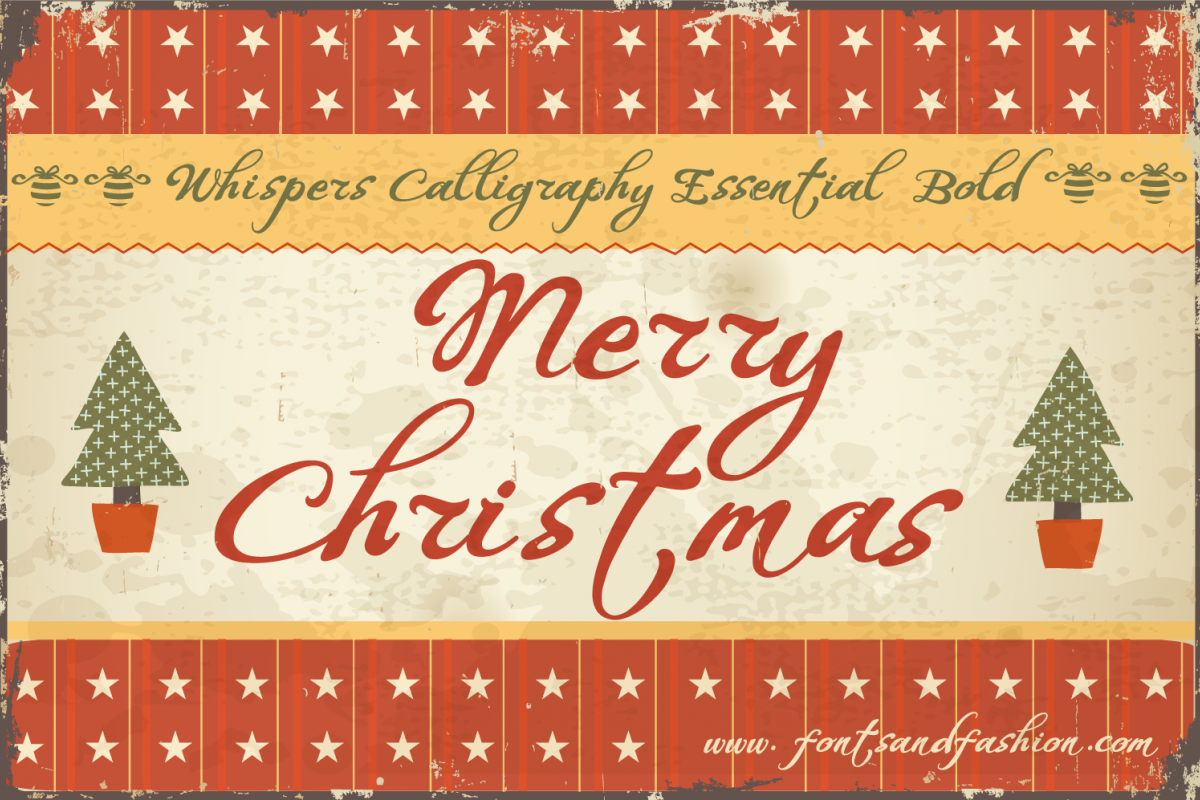
Whispers Calligraphy Essential_Bold
In the “WHISPERS CALLIGRAPHY_essential_BOLD” font, elegance is not achieved just through the already-known contrast between thicks and thins of calligraphy, but thanks to the purity of form. Essential and well defined curvatures create a harmonious symphony of letters. Its BOLD appearance, confers to the calligraphy the right accent of character and sophisticated personality. In addition to its nice performance when used over photographs; the font can be a good option for packagings and wedding invitations.